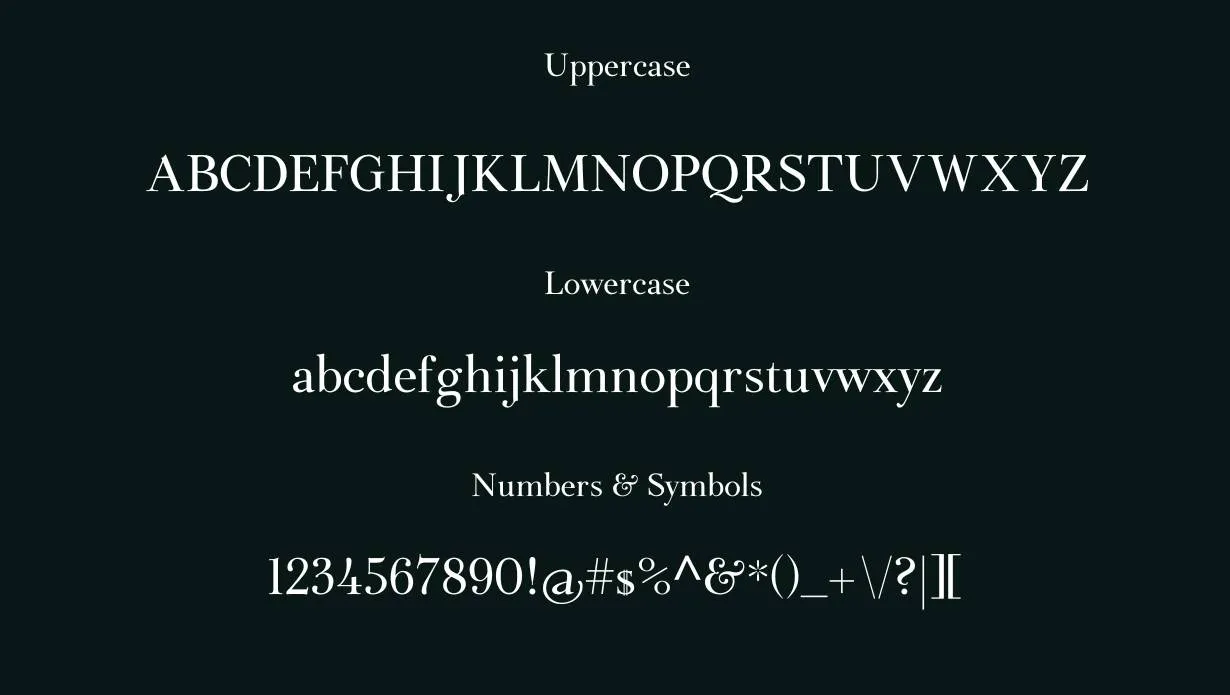
Botera Font is a flexible and easy-to-read font that works well for a variety of design projects.
Its clean lines and modern design make it a practical choice for branding, advertising, web design, and packaging, providing a contemporary and well-organized aesthetic to your projects.